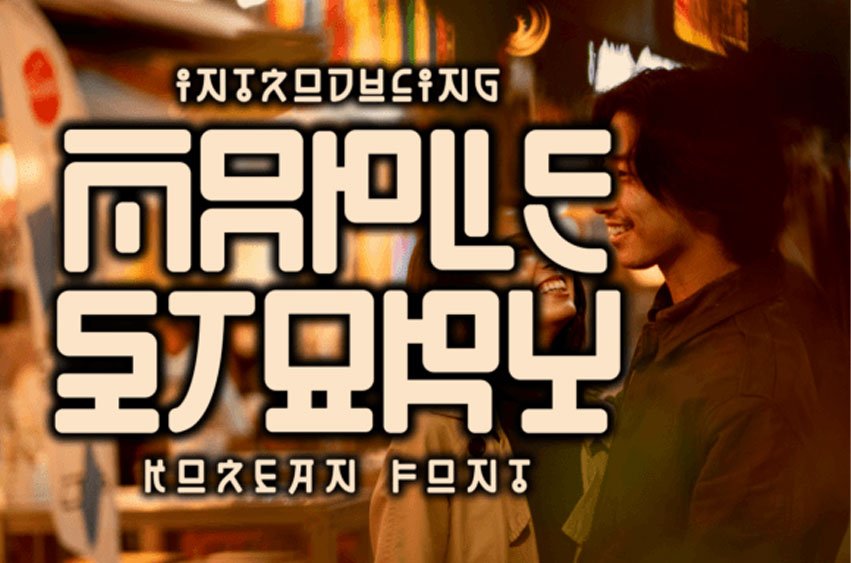
Maple Story Font Immerse yourself in the enchanting allure of Korea with Maple Story, a delightfully whimsical Korean-style font. Each stroke delicately captures the unique charm and elegance of this East Asian gem, perfectly suited for enhancing any design project with a touch of playful authenticity. From corporate branding and event invitations to children’s literature and sophisticated packaging, Maple Story’s quirky and delightful characters are poised to captivate and impress.
But the magic doesn’t stop there. Maple Story proudly boasts a versatile font family, offering an array of letter variations. Tailor your text by mixing and matching these artistic alternates and ligatures, injecting a dynamic and bespoke aesthetic into your creations. Drawn from the vibrancy of drakor and broader Asian cultures, each character echoes the lively personality of the font’s creators, offering more than mere text – it’s a statement of style, an emblem of expression, a true tale told – that’s the essence of Maple Story.